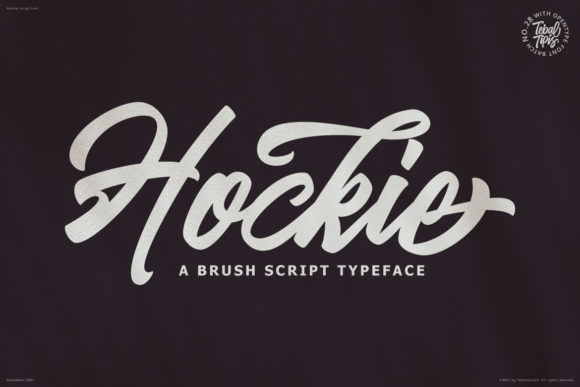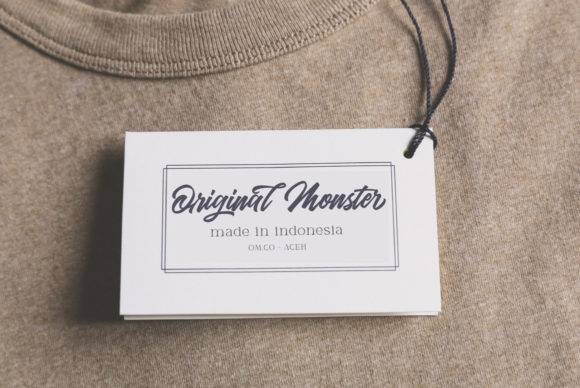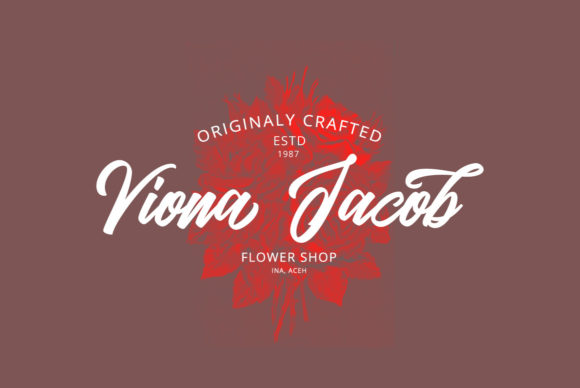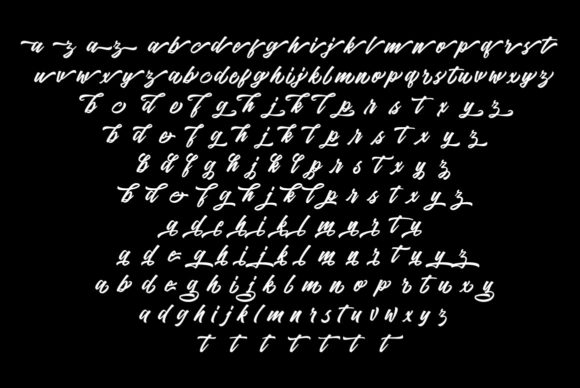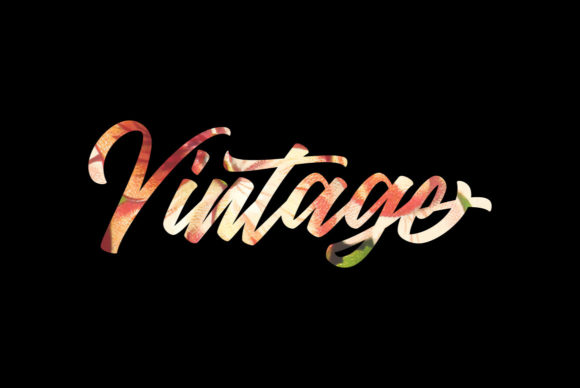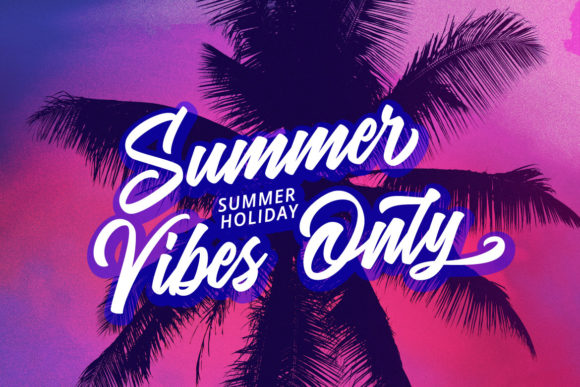
Hockie Script Font
Hockie Script is a vintage styled and bold handwritten font, crafted to give your headlines and logotype projects a retro touch. This font is PUA encoded which means you can access all glyphs and swashes with ease!